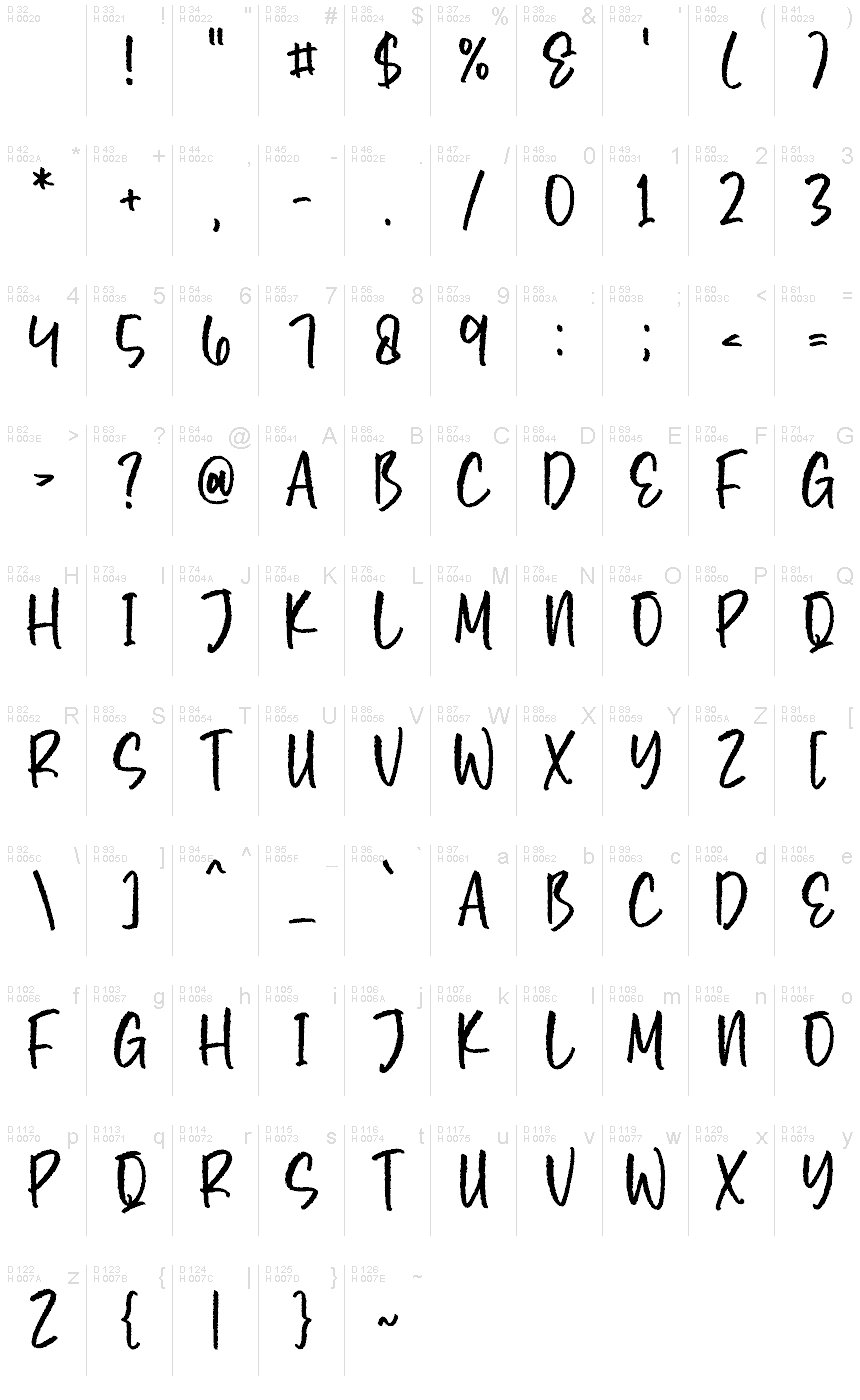
Rawsome Machinery
Rawsome Machinery font by Perspectype Studio - Letterena.com is an expressive handwritten typeface with a modern style and youthful vibe. Its distinctly artistic style gives every word a vibrant, authentic energy unmatched by any digital font. The contemporary calligraphy font has a vigorous charm making it powerful and life-giving despite its imperfections here and there. The uneven letter sizes reflect the handwritten spirit presented by this brush-style textured type of writing.
Create mesmerizing book covers, custom product packaging, personalized greeting cards, eye-catching poster designs, artistic flyers, stylish invitations, unusual social media posts or accounts introductions. With Rawsome Machinery font’s authenticity and character in your tool kit arsenal the sky is the limit!